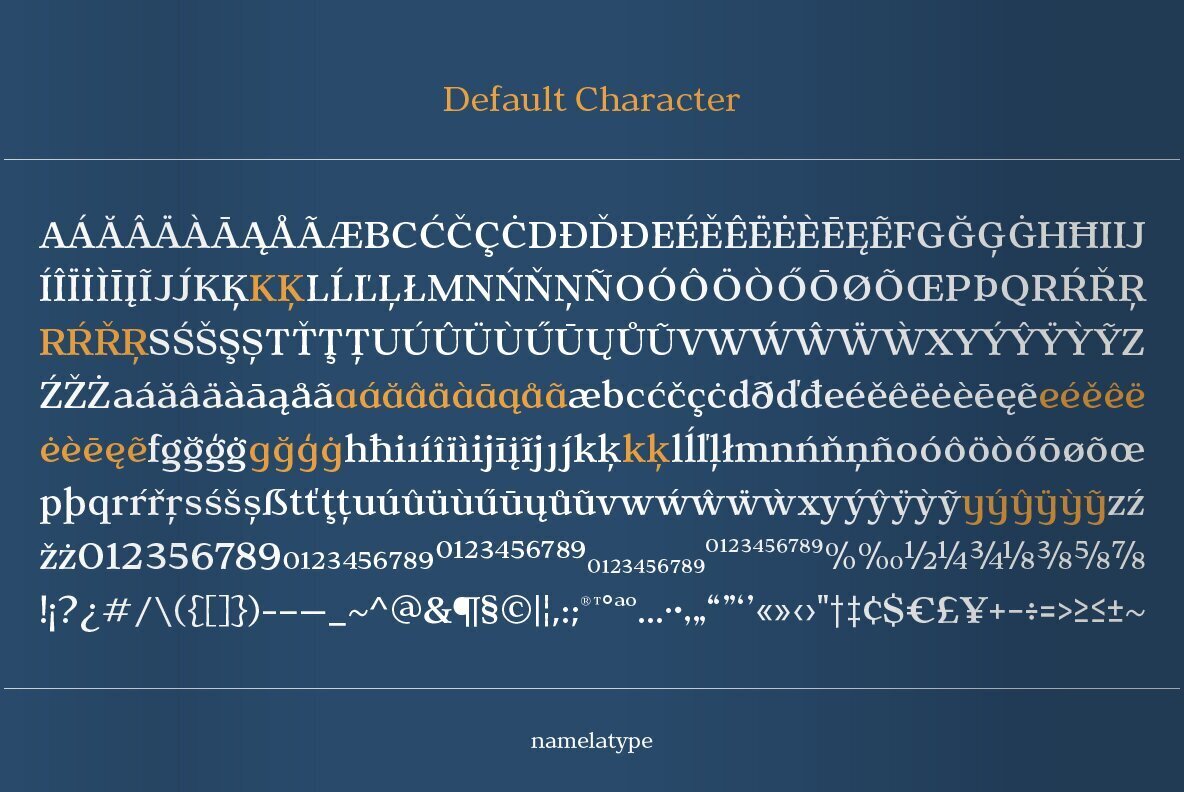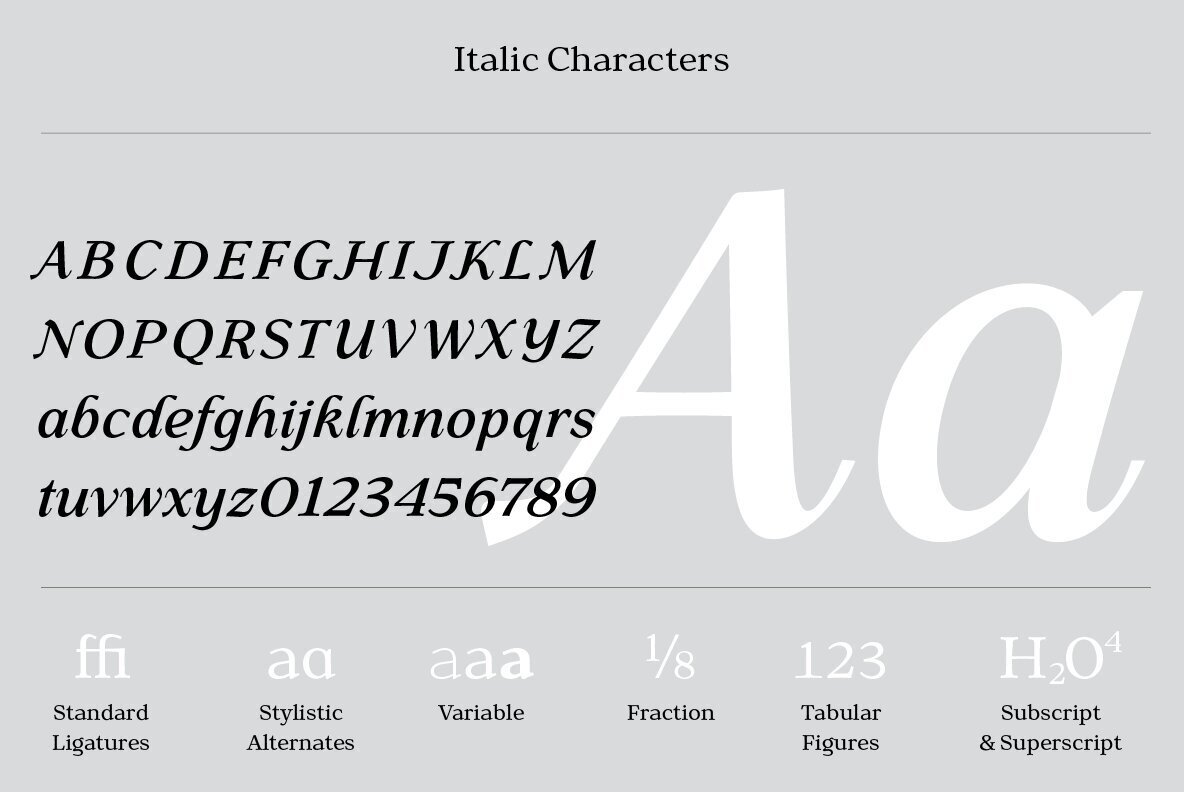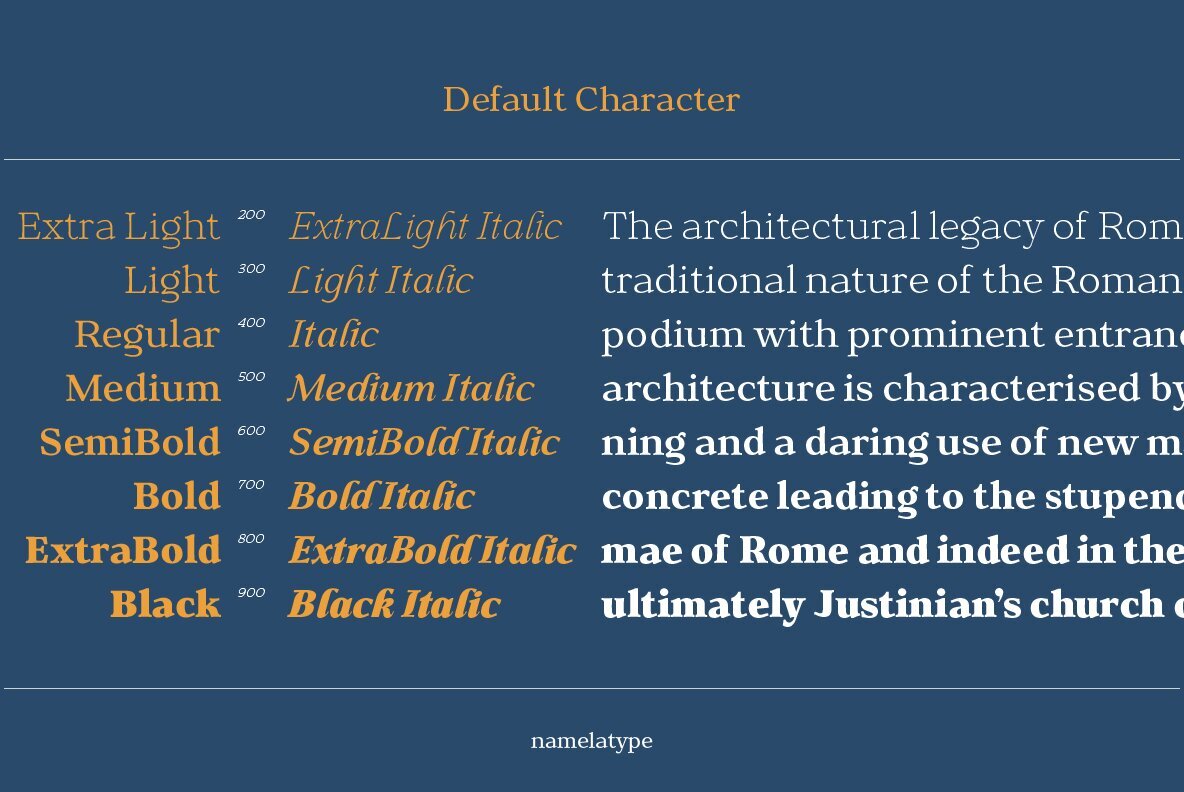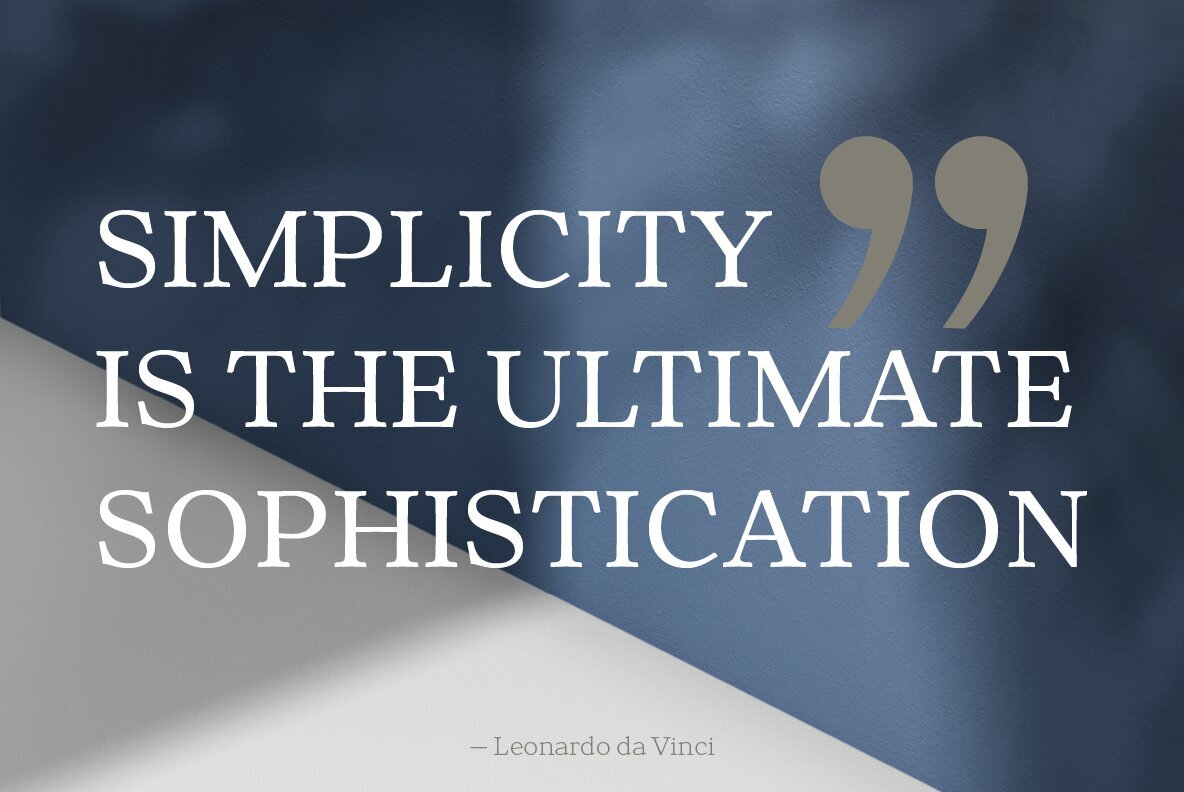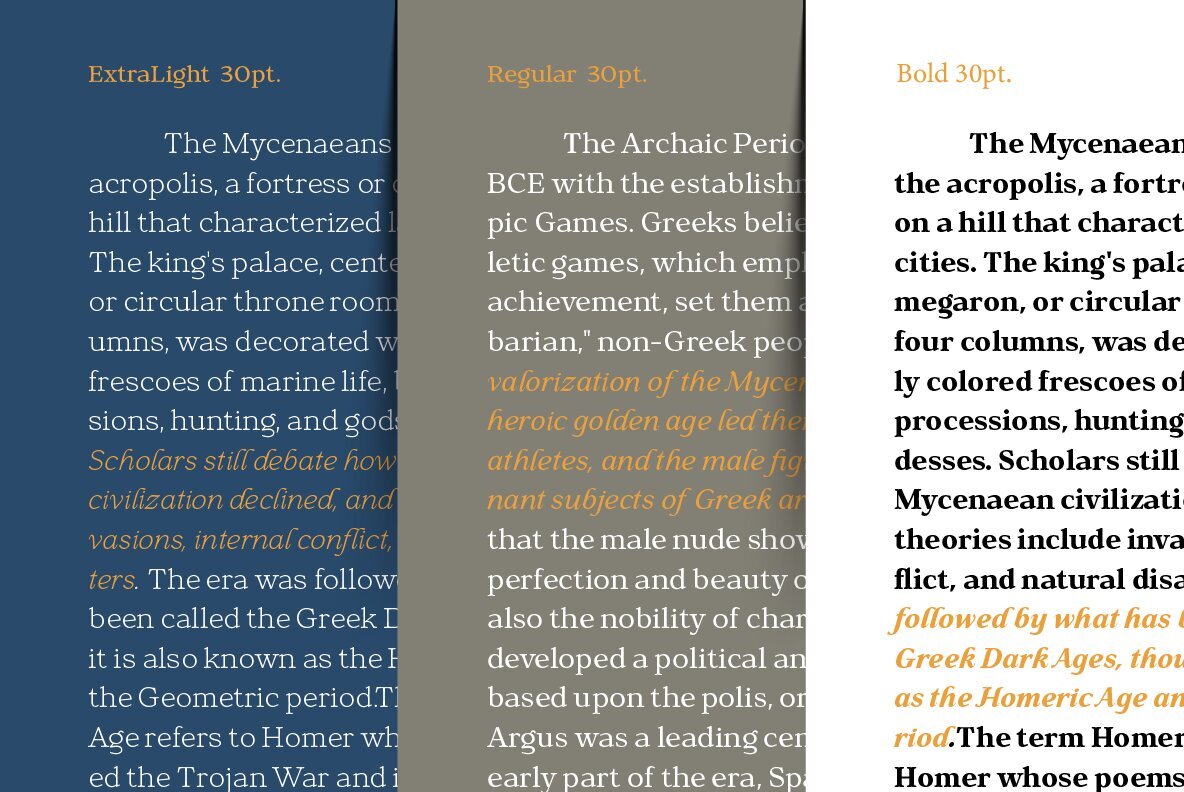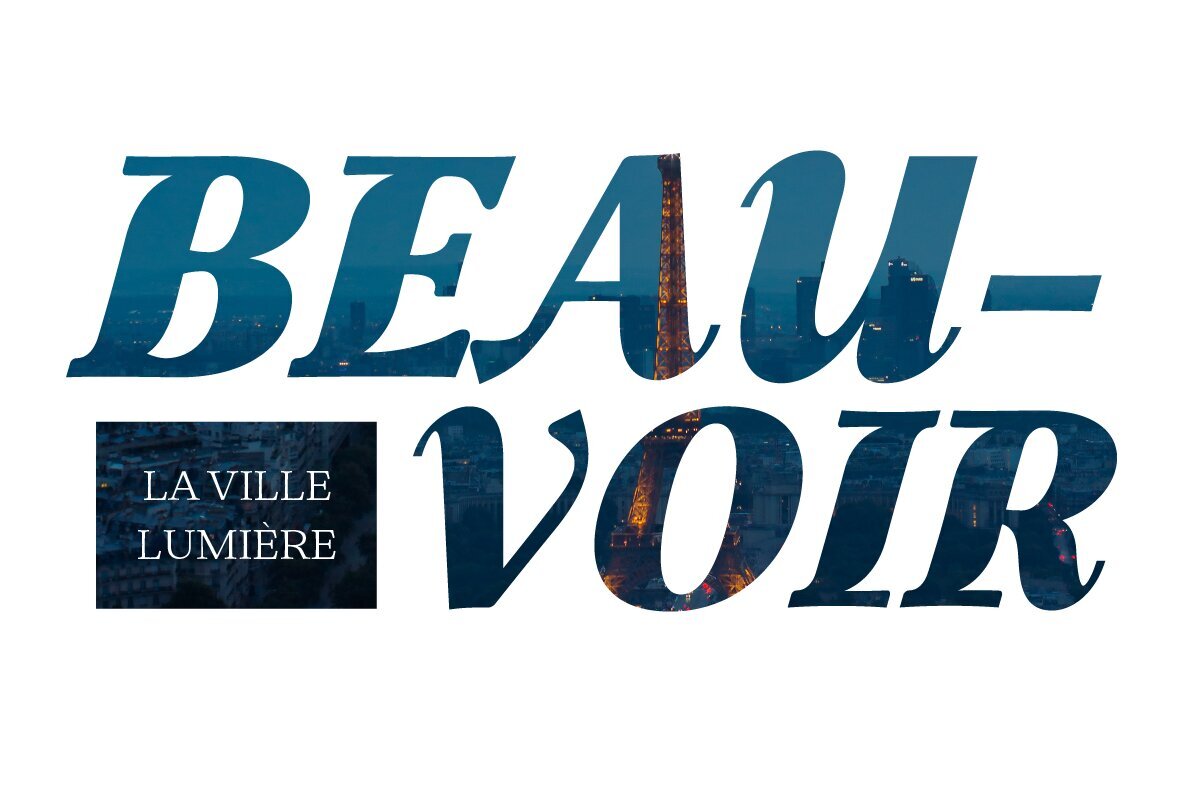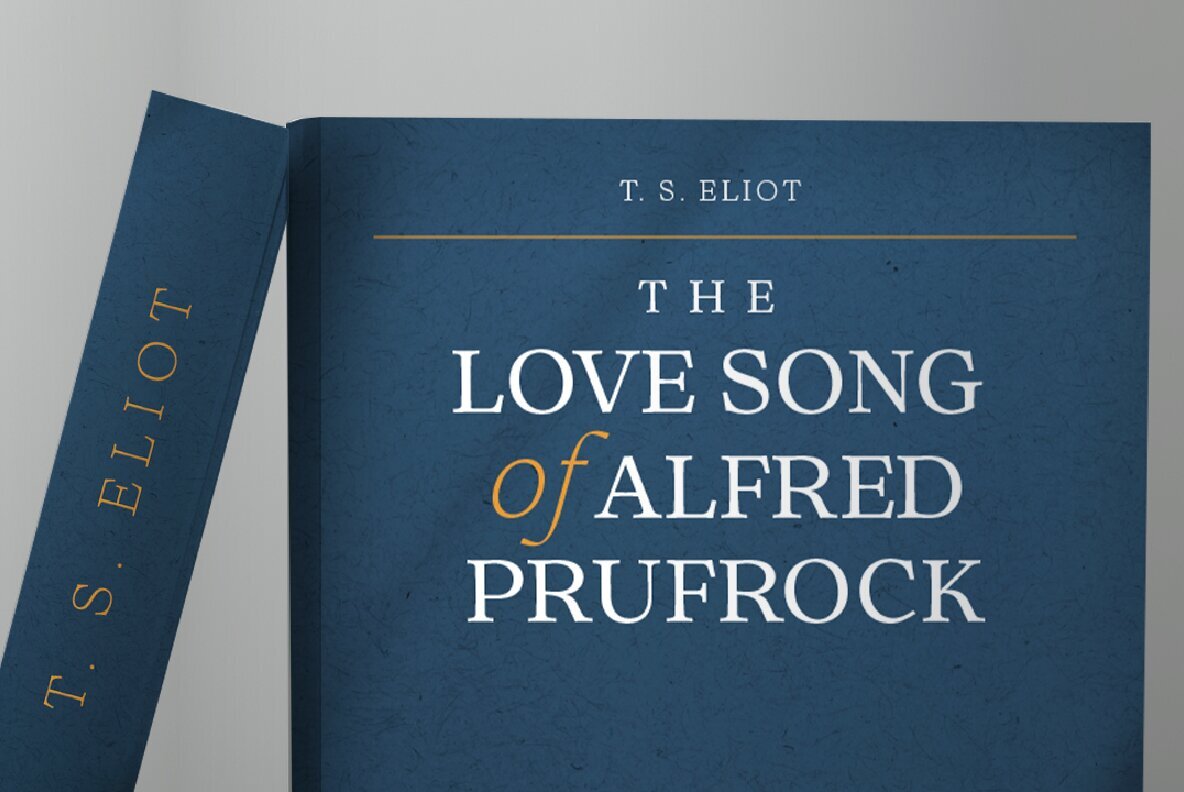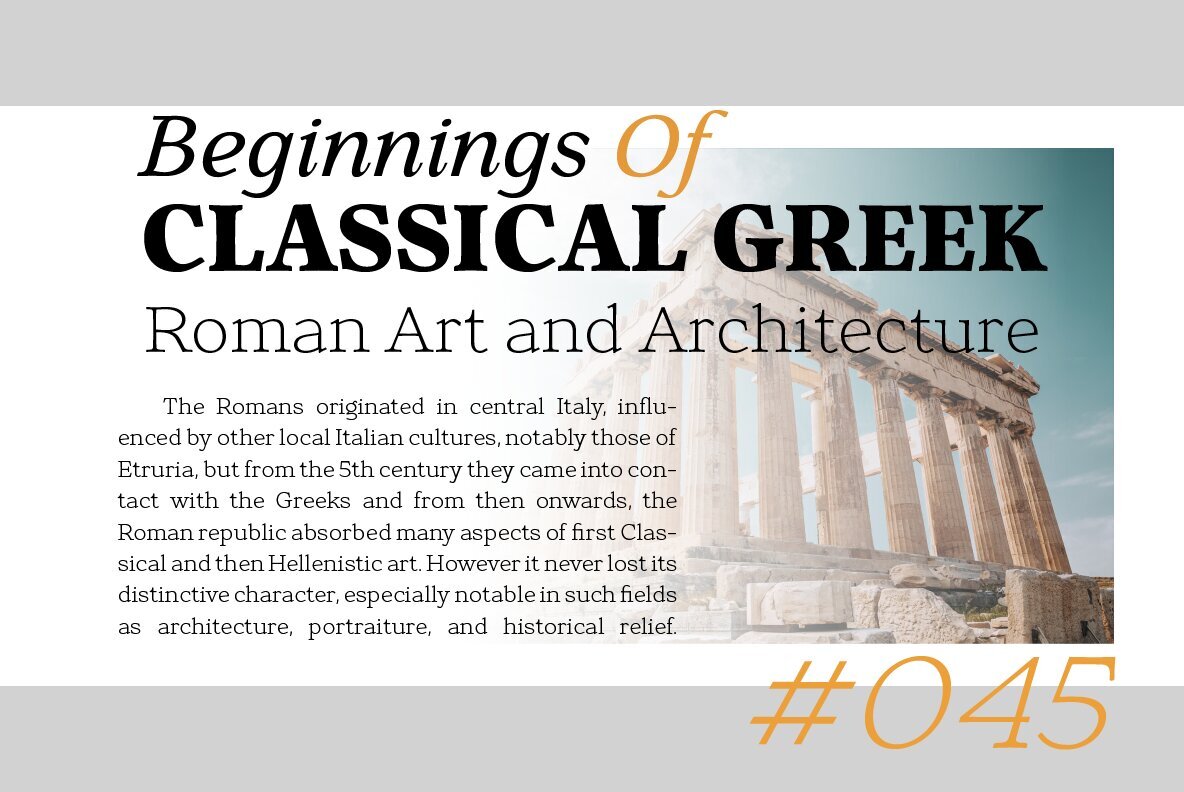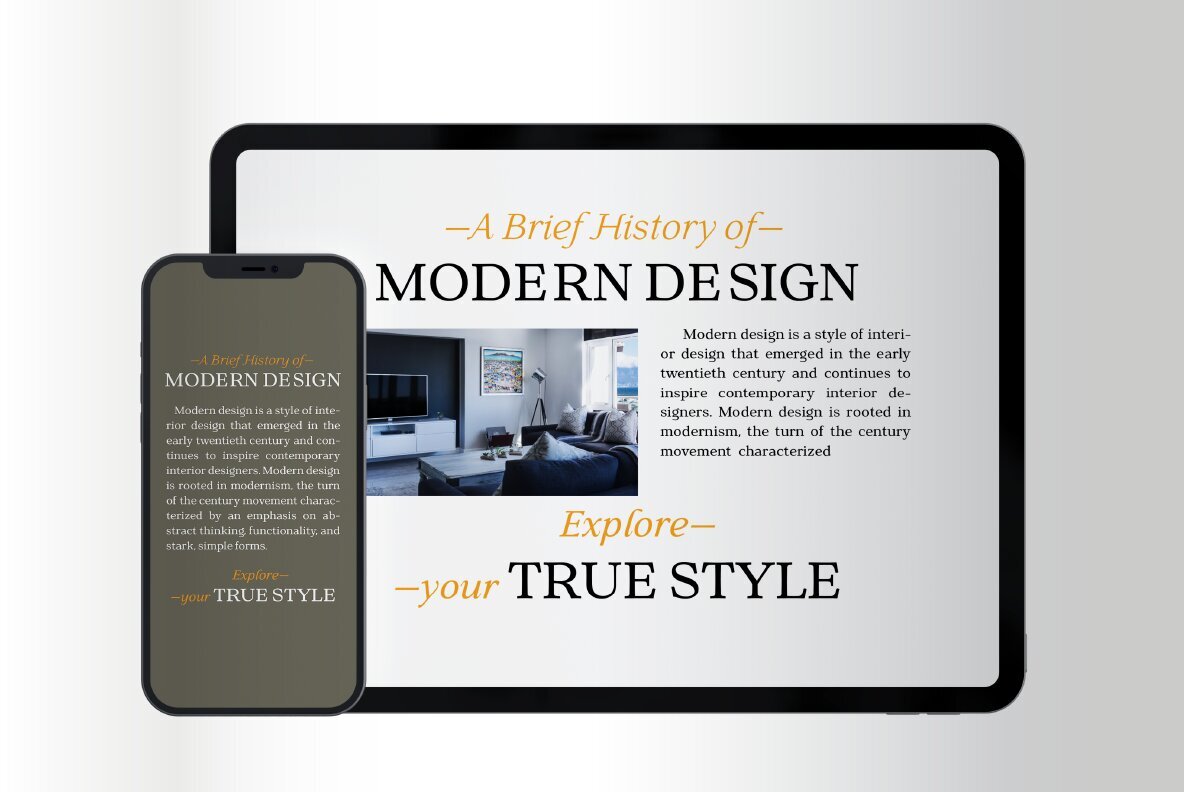
Gibralt Font
Gibralt inspired by Venetian style Typeface that appeared in the late 14th century, with some improvisation. Designed with high contrast. The stems are not completely straight, slightly narrow in the middle, combining rounded and right angle at the terminals and serif ends.
Gibralt consists of 8 styles from Extra light to Black, each matching with italics version. Suitable for Headlines, paragraph, text, printing and more.